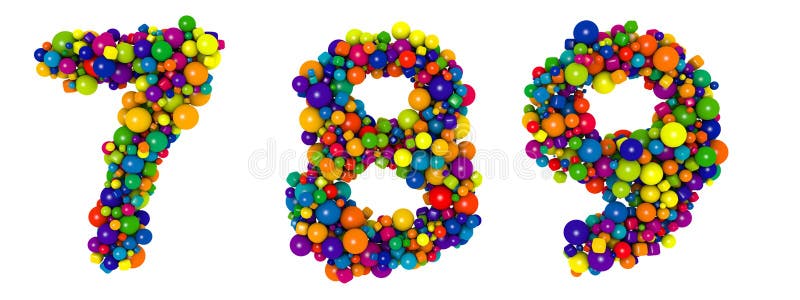
Multicolored letters number 7 8 9. Funny 3D illustration. Glossy multicolored decorative balls text. 3D render of bubble font with glint isolated on white background.